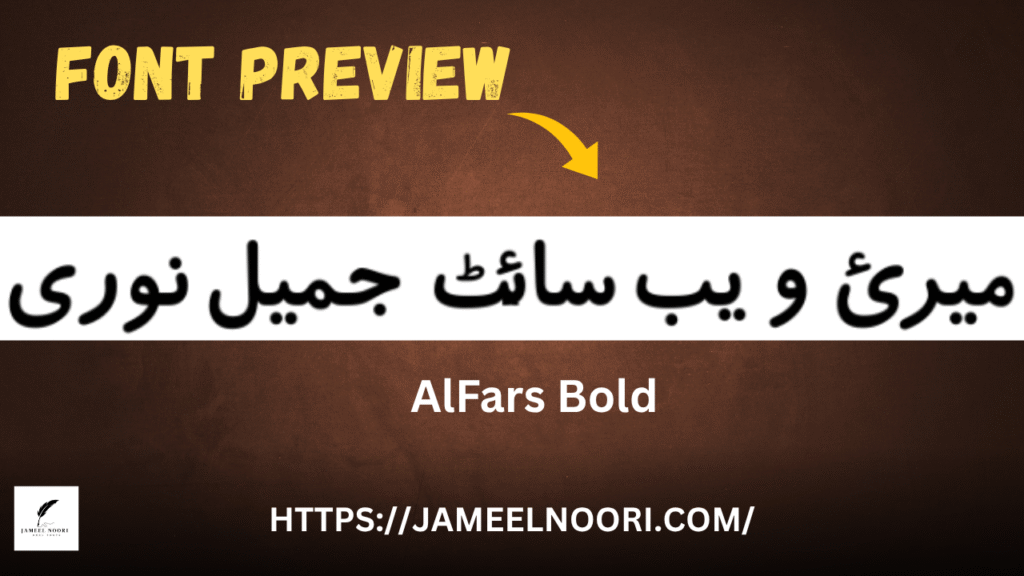
Introduction
If you’re looking for a strong, professional, and stylish Urdu font for headlines, banners, or digital design, AlFars Bold is a perfect choice.. With over 13,000 downloads and an impressive 4.5-star rating, this TrueType Urdu font stands out for its bold style and clarity..Font Information
Font Name | AlFars Bold |
Font Style | Bold |
✨ Why Choose or Download Urdu Font AlFars Bold Font?
- ✅ Professional Bold Look – Ideal for headlines and impactful text
Where Can You Use AlFars Bold?
- Urdu poster titles
- Headlines in magazines or newspapers
- Social media graphics
- Urdu thumbnails for YouTube
- Stylish Urdu quotes and banners
AlFars Bold Urdu Font is a top-quality, bold TrueType Urdu font designed for users who want clarity and power in their Urdu text.. Whether you’re designing banners, writing headlines, or creating thumbnails, AlFars Bold offers the strength and beauty your typography needs.. Download it today and give your Urdu content a bold new look!Download Urdu Font AlFars Bold by Jameel Noori